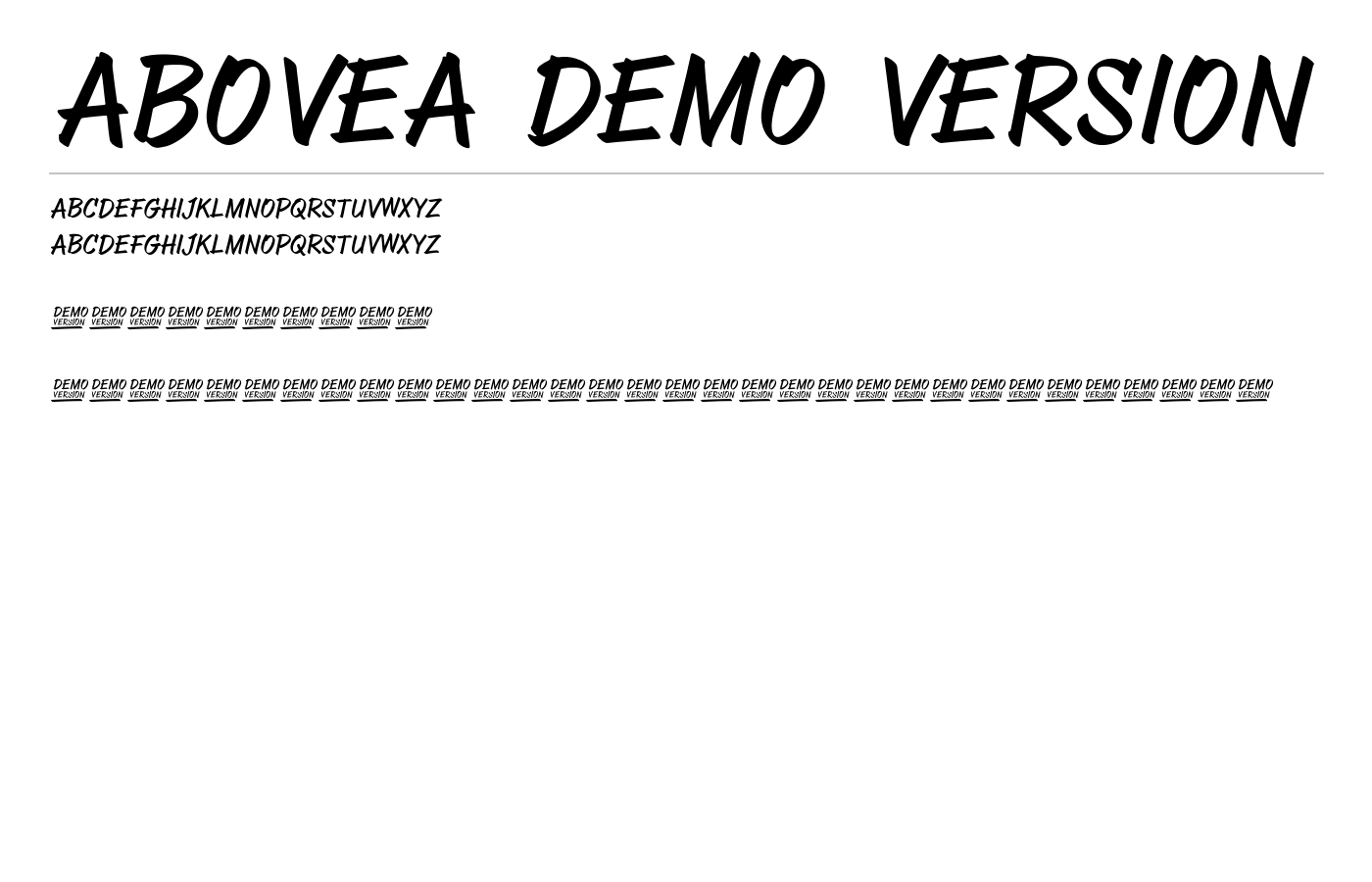
ABOVEA DEMO VERSION is a playful and dynamic sans serif font with a hand-drawn, brush script style that feels casual yet energetic. Its irregular, slightly slanted letterforms with medium weight and lively strokes make it ideal for creative, informal branding or headlines that need a personal, approachable touch. This font works well for posters, logos, and designs that want to convey friendly confidence and artistic flair.
ABOVEA DEMO VERSION Font
About ABOVEA DEMO VERSION Font